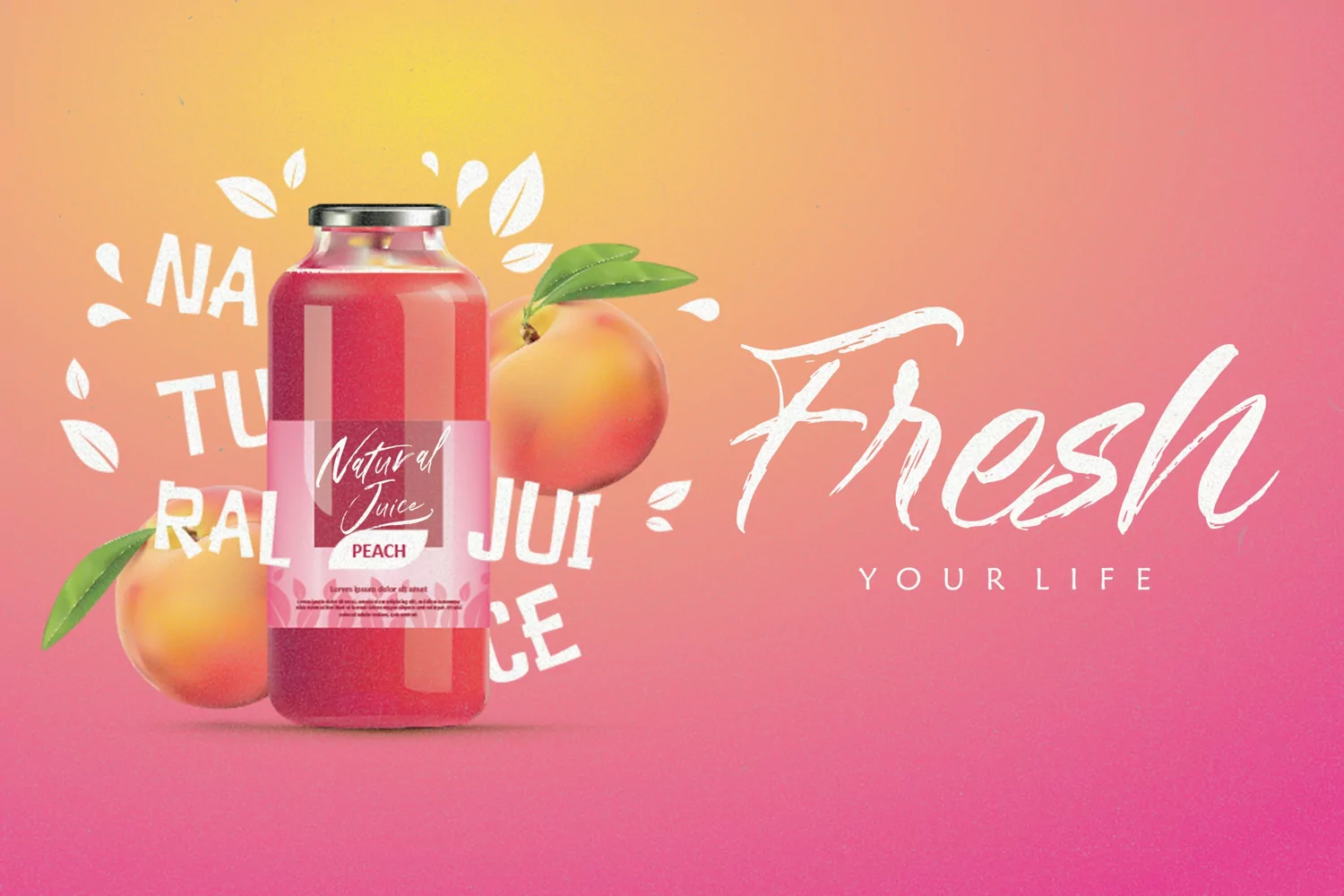
Creation Retro Font
Manhattan comes as a stylish, fresh new handwritten brush script
and full of great features.
It contains a full set of lower & uppercase letters, a large range of punctuation,
numerals, and multilingual support.
The font also contains several
ligatures and stylistic alternates for those who have opentype capable software.
Perfect for bold statements and sophisticated branding ,
Manhattan helps set your designs apart by adding a custom-lettered look.